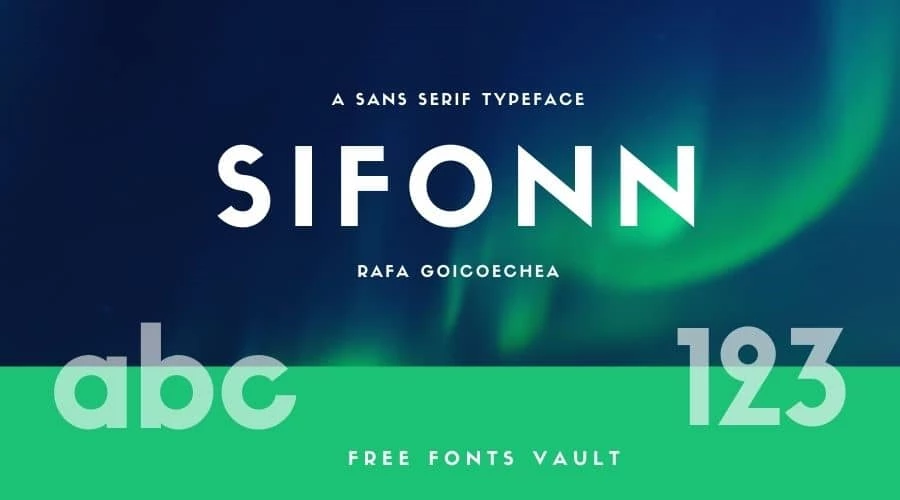
We haven’t posted free sans-serif fonts on our site for a long time. So today we have come up with a sans-serif font that is able to meet all your needs. Meet Sifonn Font designed by Rafa Goicoechea.
Sifonn Font is such a text style that is ideal for a wide range of working purposes. Plan and official stages are generally reasonable to utilize this text style. At the point when you choose to make a rich plan and need to add text, Sifonn’s textual style is an ideal decision that works. Sifonn Font has an extraordinary search for the conventional execution You can utilize this textual style on the stages below:
• Banner.
• Business Card.
• Certificate.
• Gift Card.
• Website.
• Greetings Card.
• Brochure.
• Official Documents.
• Logos.